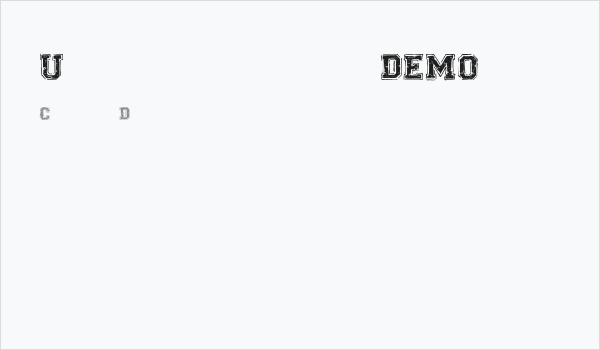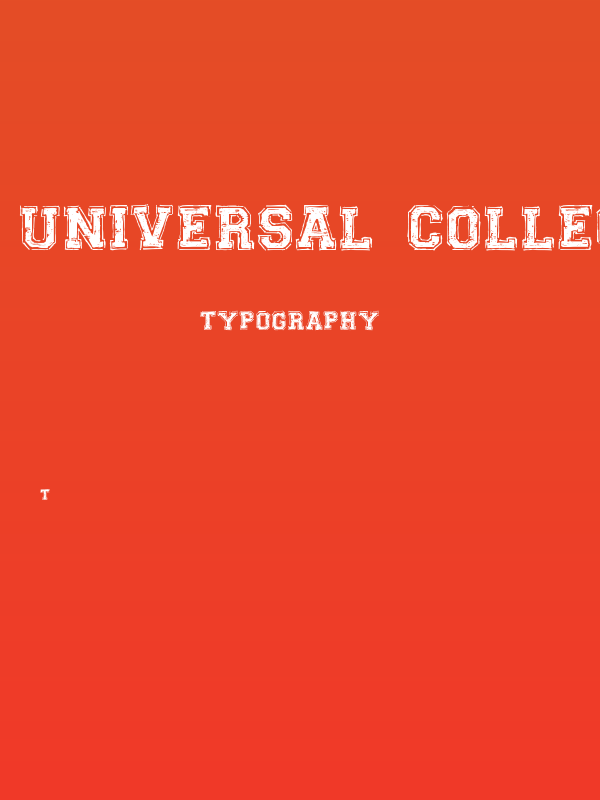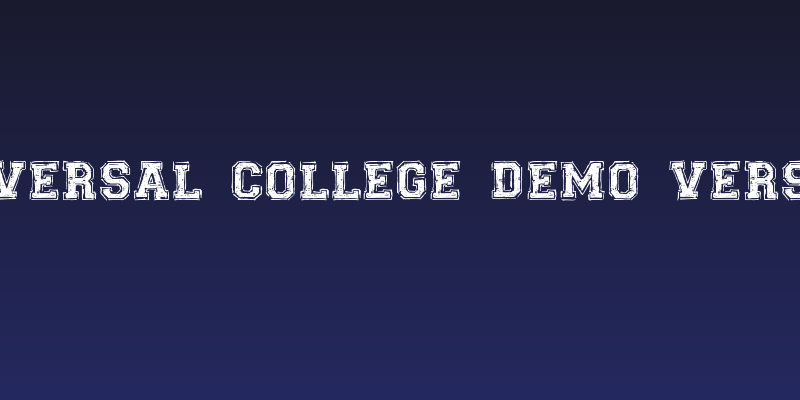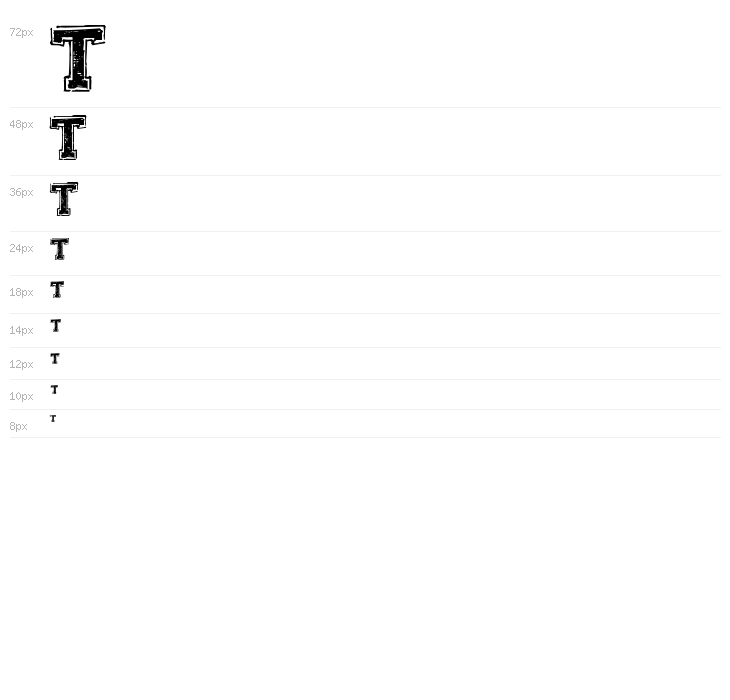
Universal-college_DEMO-version Font
Universal-college_DEMO-version Description
This font features a bold, decorative style with a distressed, vintage appearance. Each letter is outlined with a rugged, textured effect that gives it a worn, aged look, reminiscent of old western or collegiate styles. The uppercase letters are prominent and commanding, making them ideal for impactful headlines or titles. The intricate detailing within each character adds depth and character, making it stand out in any design. The font's unique style is both eye-catching and nostalgic, perfect for projects that aim to evoke a sense of history or tradition.
| Proposed Projects | Ideal for posters, logos, branding, and any design requiring a vintage or collegiate theme. |